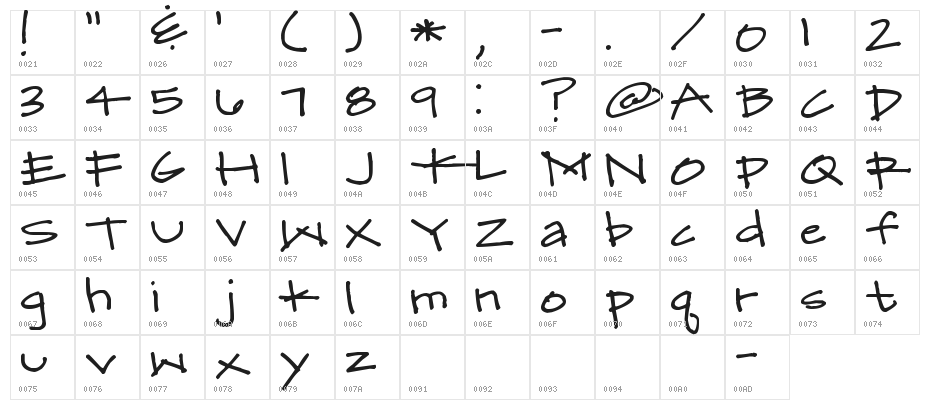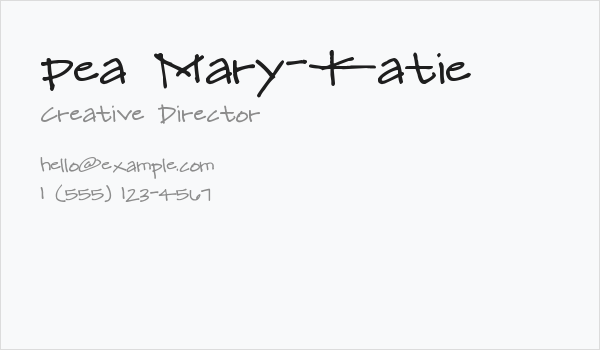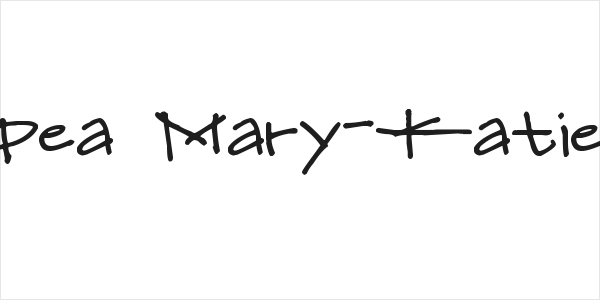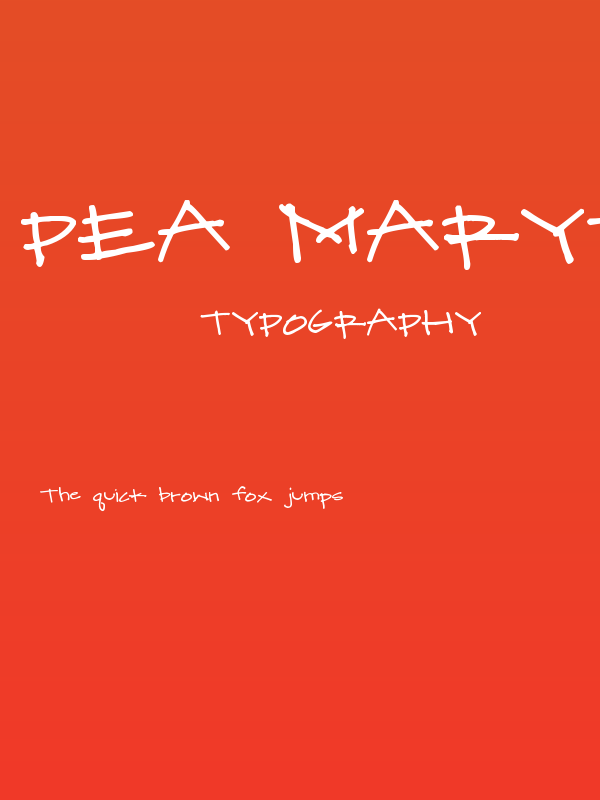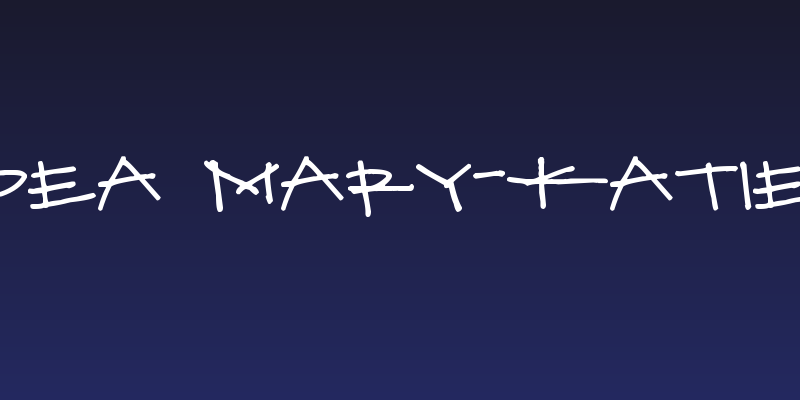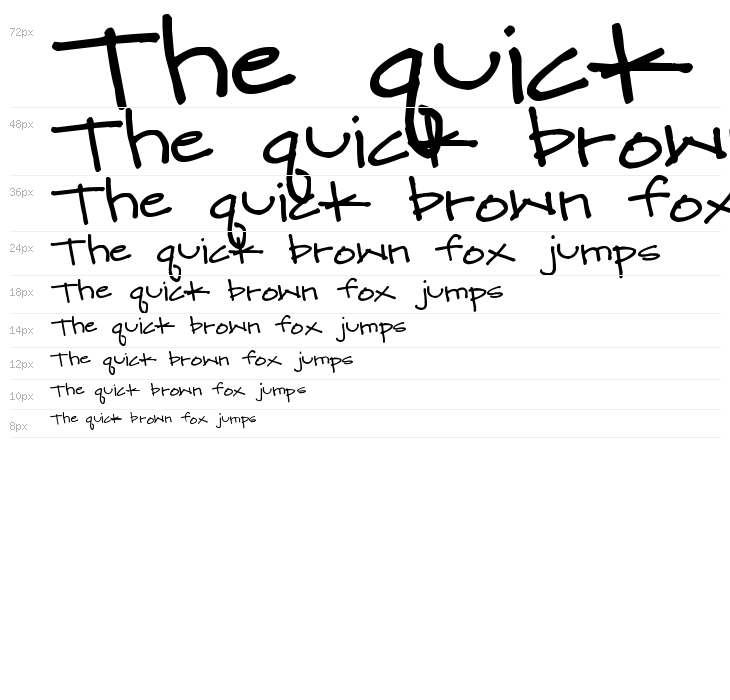
Pea Mary-Katie Font
Pea Mary-Katie Description
This font features a playful and casual handwritten style, characterized by its irregular, slightly tilted letters that mimic natural handwriting. The strokes are uneven, adding to its informal and friendly appearance. The uppercase and lowercase letters maintain a consistent style, with rounded edges and a slightly whimsical touch. Numbers and special characters follow the same playful design, making the font versatile for creative projects. Its unique personality makes it stand out, ideal for designs that require a personal and approachable feel.